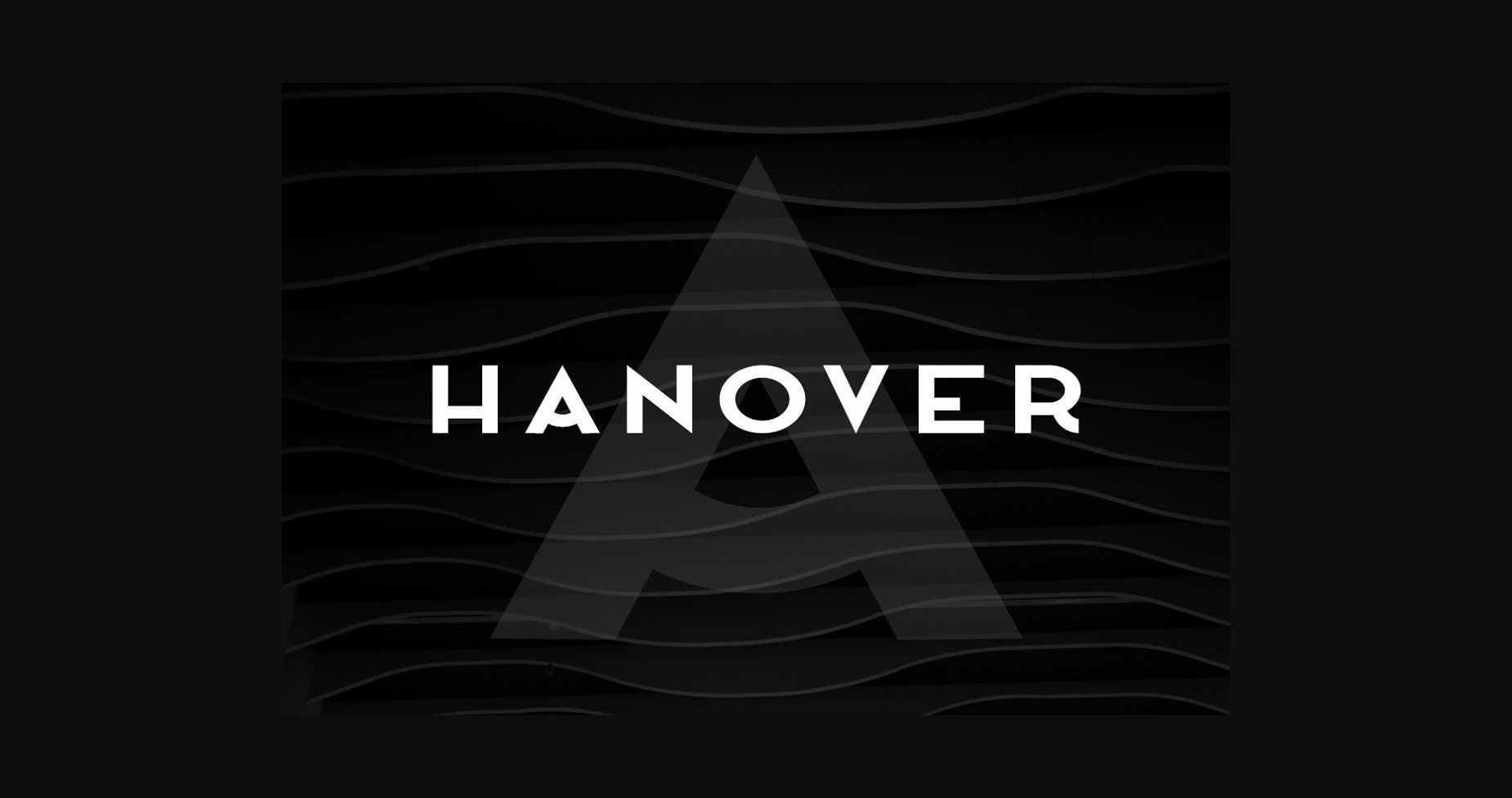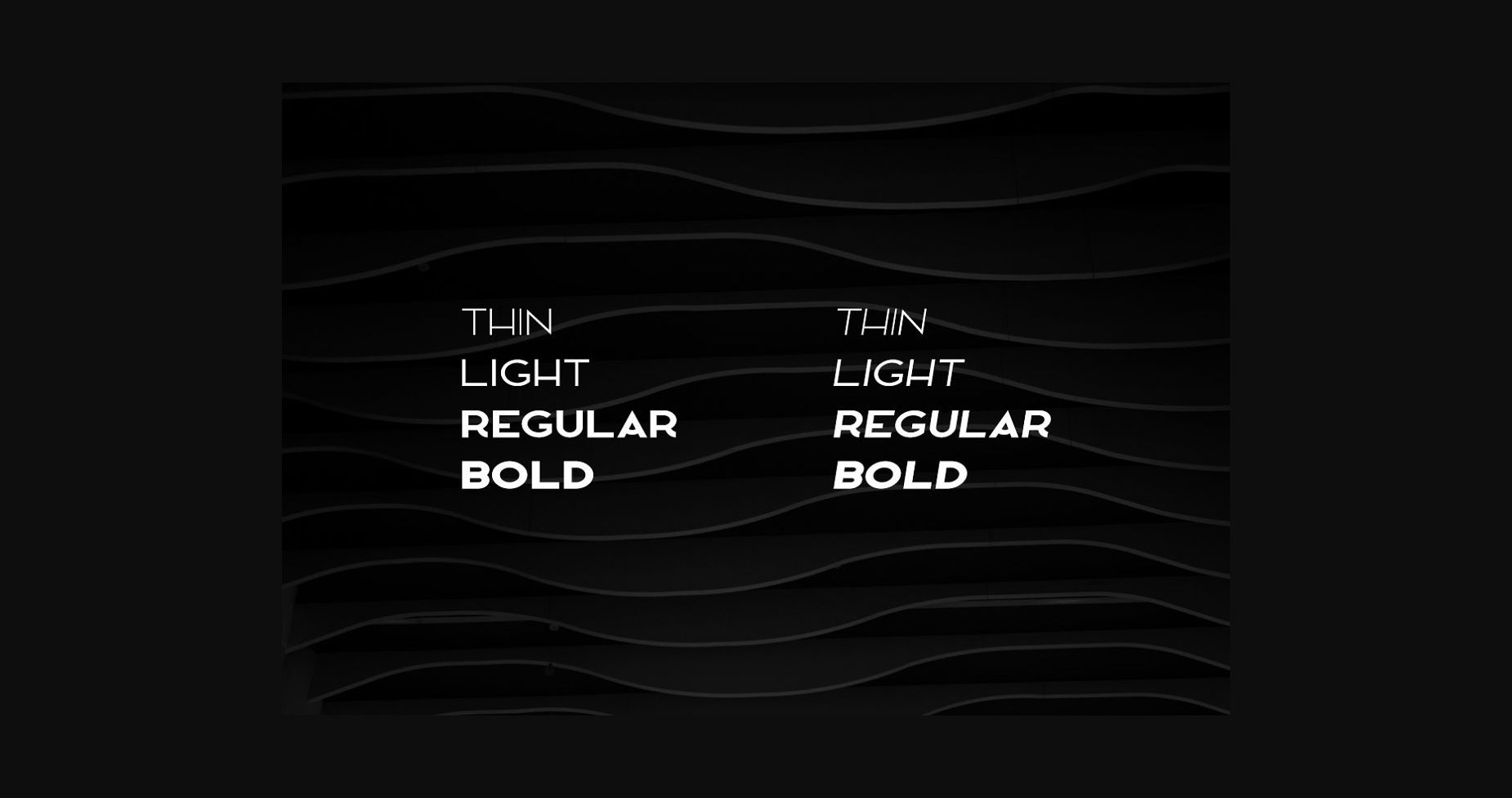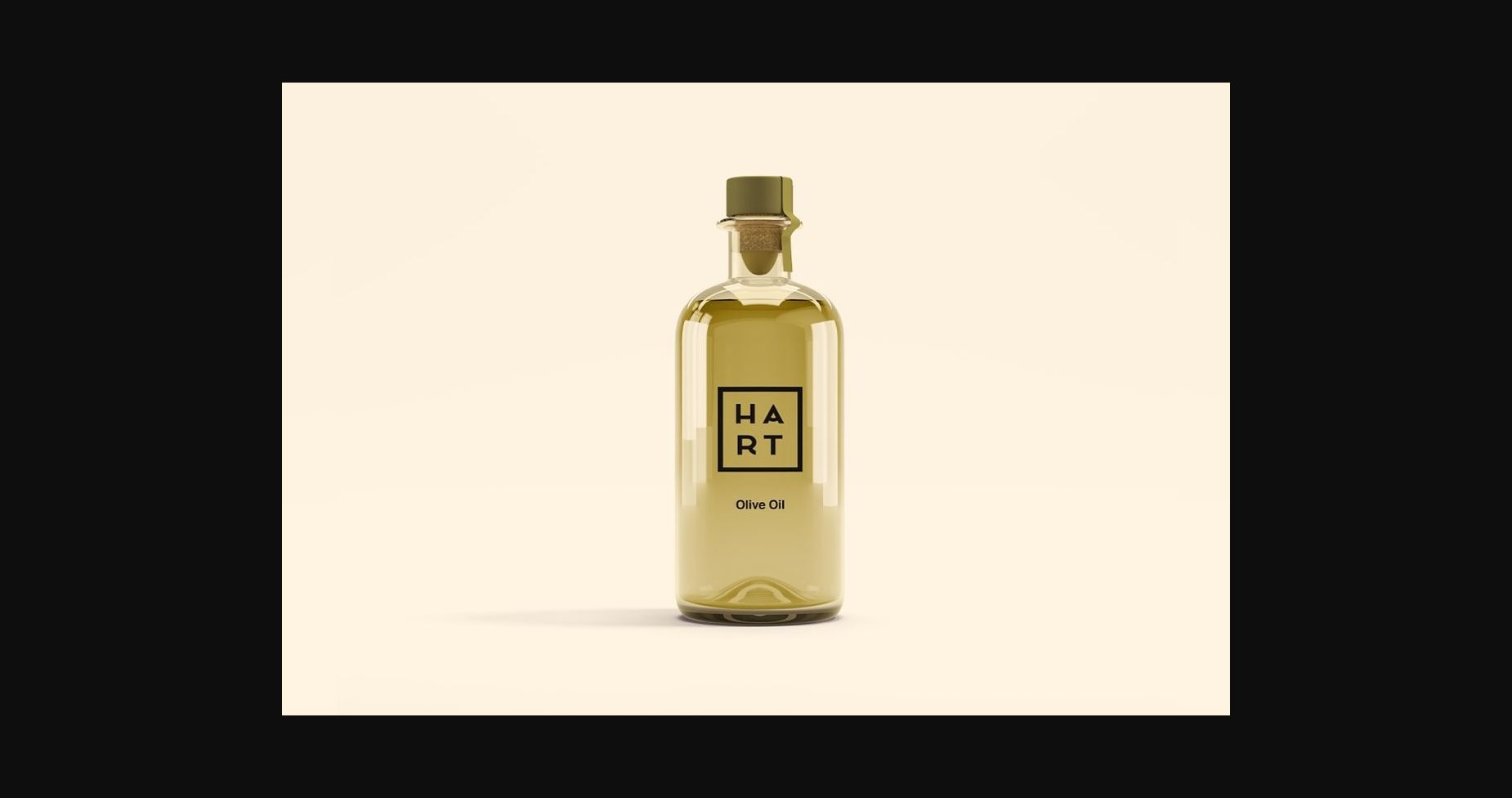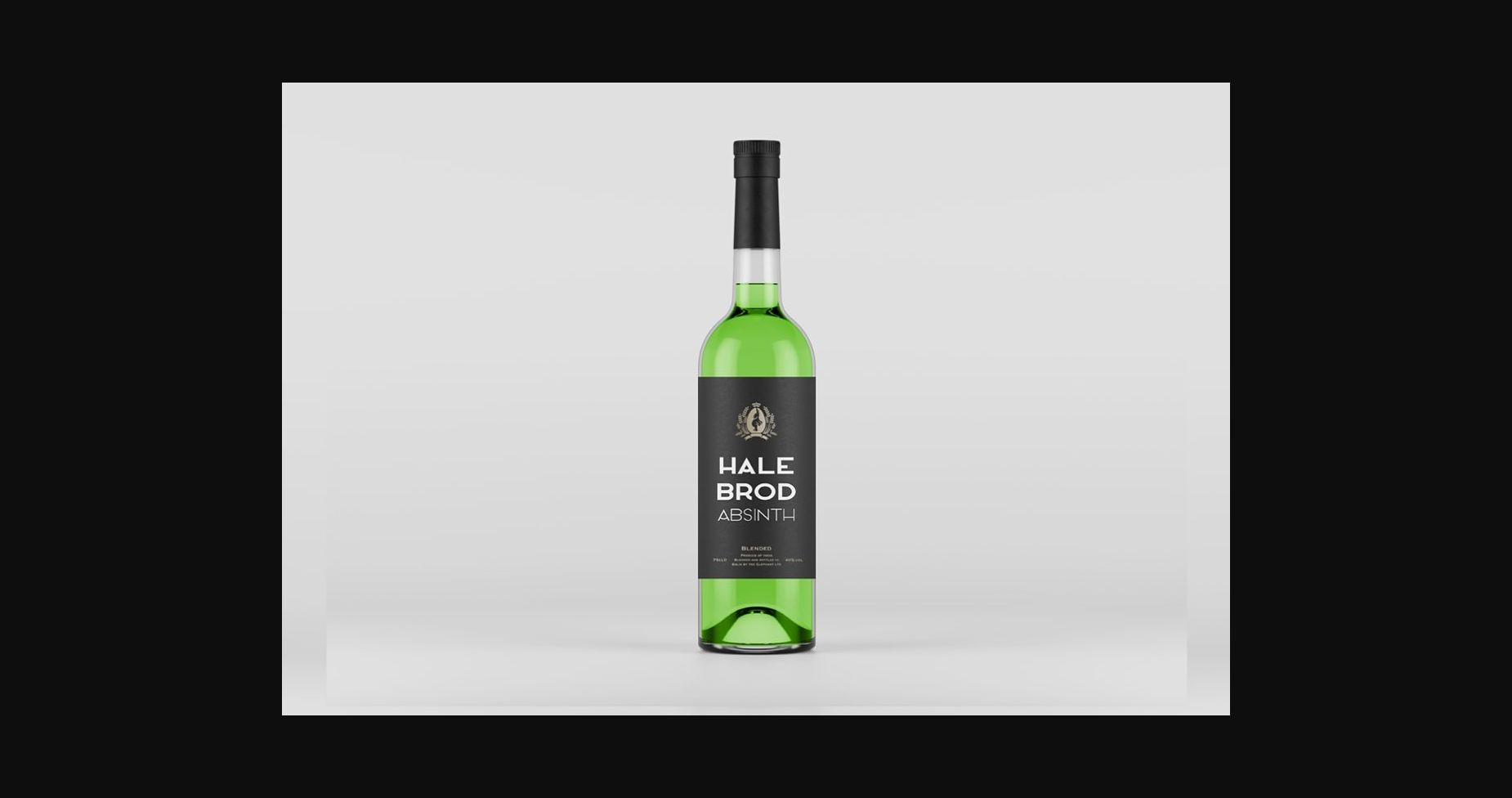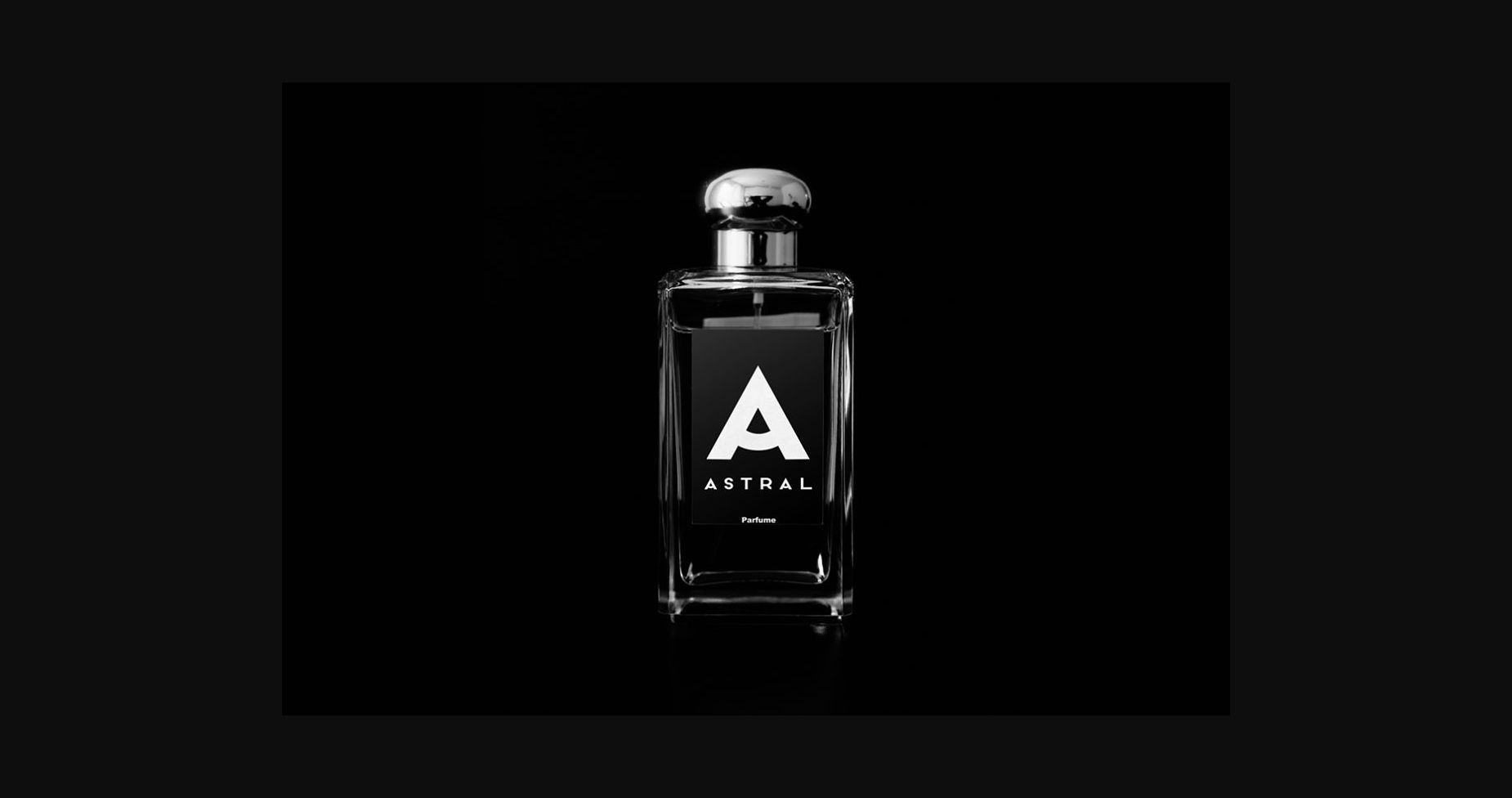
Hanover Font
About Hanover Font
Stylish, luxurious, and modern, Hanover is the most amazing sans serif font! Its fashionable flare makes it perfect for beautiful headlines, branding, logotypes, display usage, and others!